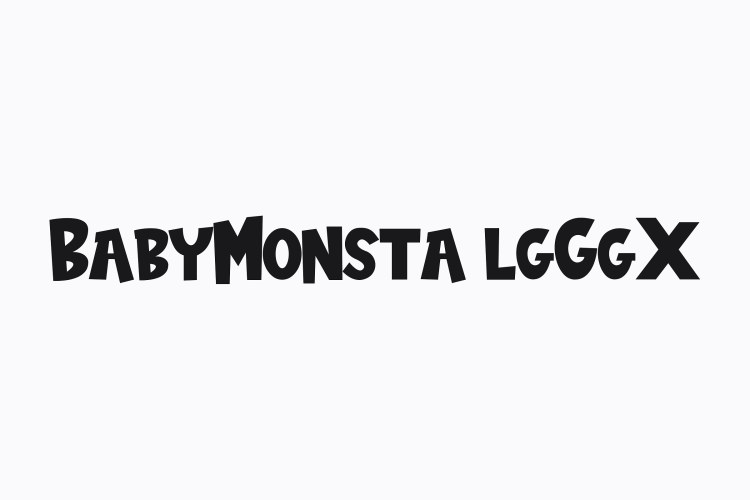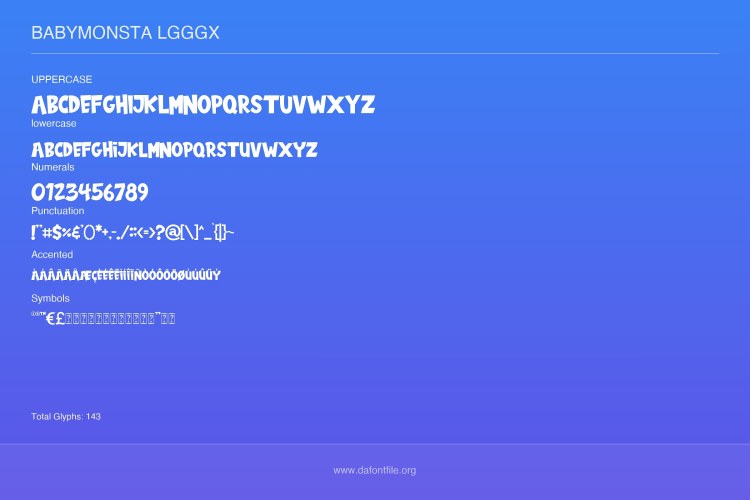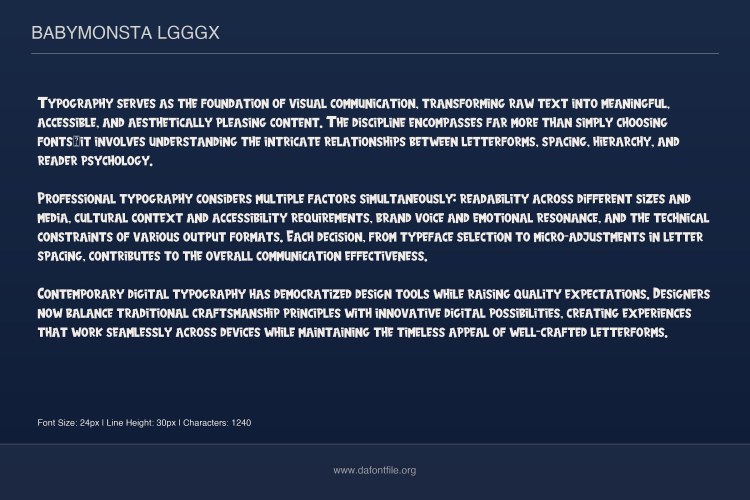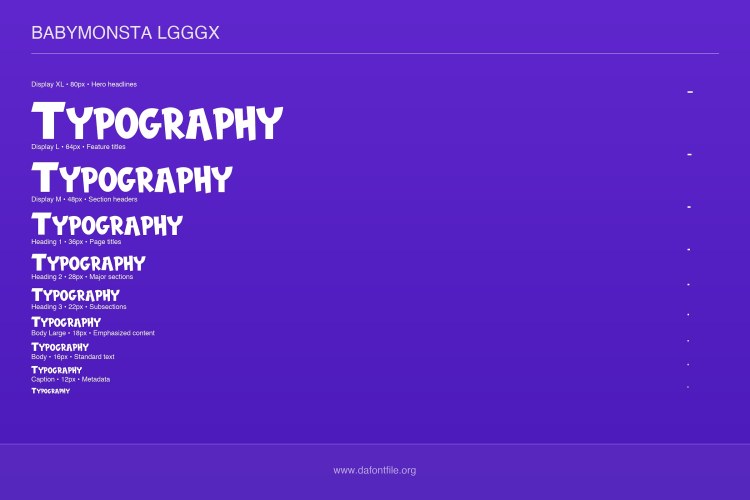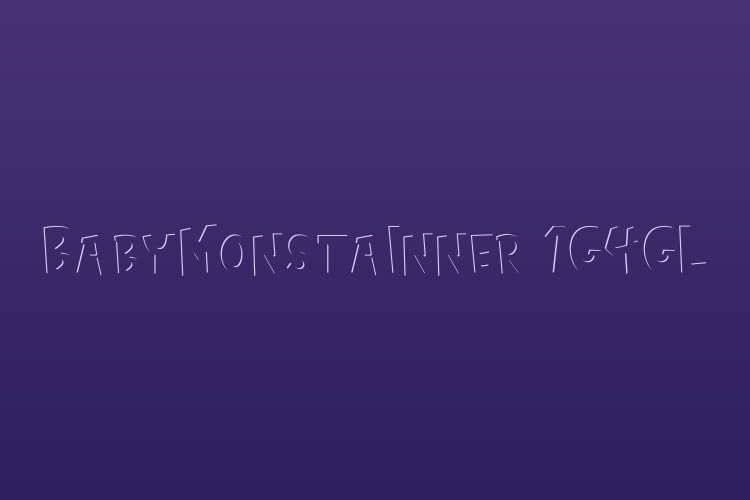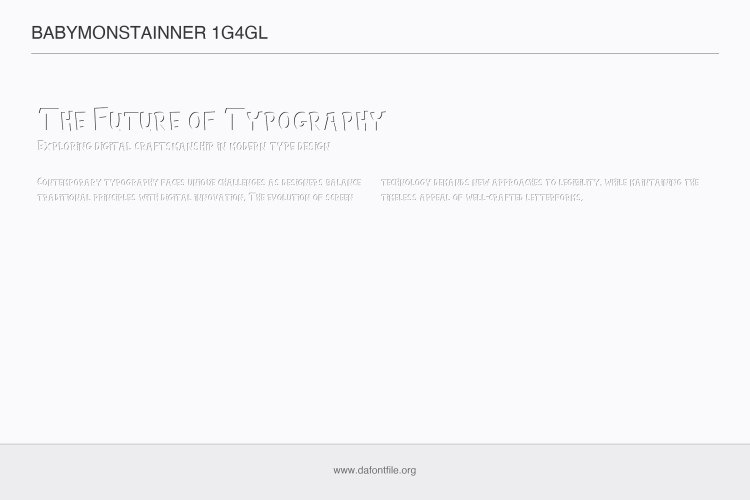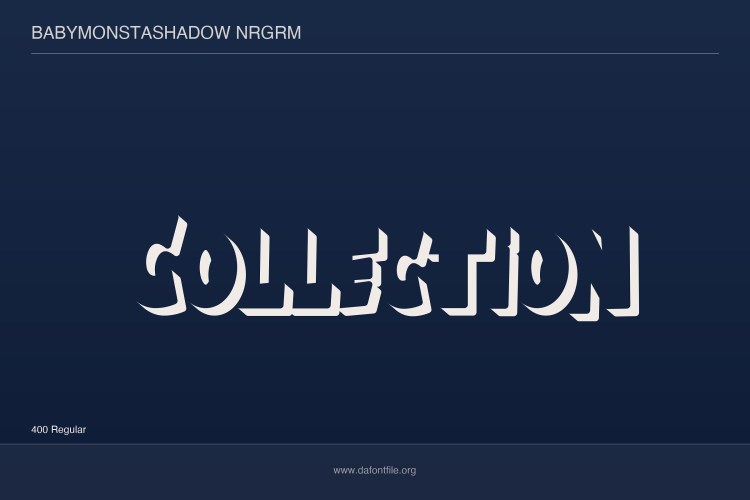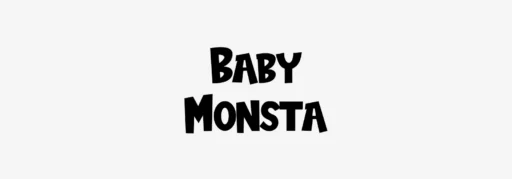
Baby Monsta Font Family
Baby Monsta is a playful and quirky display typeface full of character. Its chunky, hand-drawn letters bring a fun, energetic vibe to posters, kids’ designs, logos, and creative projects. With its bold personality, Baby Monsta makes any design stand out in a lighthearted way.
Where Baby Monsta Font Family works best
Baby Monsta Font Family is built for size: event posters, hero headlines and billboard-style layouts.
High contrast display type like Baby Monsta Font Family reads instantly in thumbnails and motion graphics.
What is Baby Monsta Font Family good for?
Baby Monsta Font Family is a Display Fonts typeface tagged Bold, Branding, Creative, Display. It works well for headlines, logos, posters, social media graphics and branding projects that need a distinctive display fonts look.